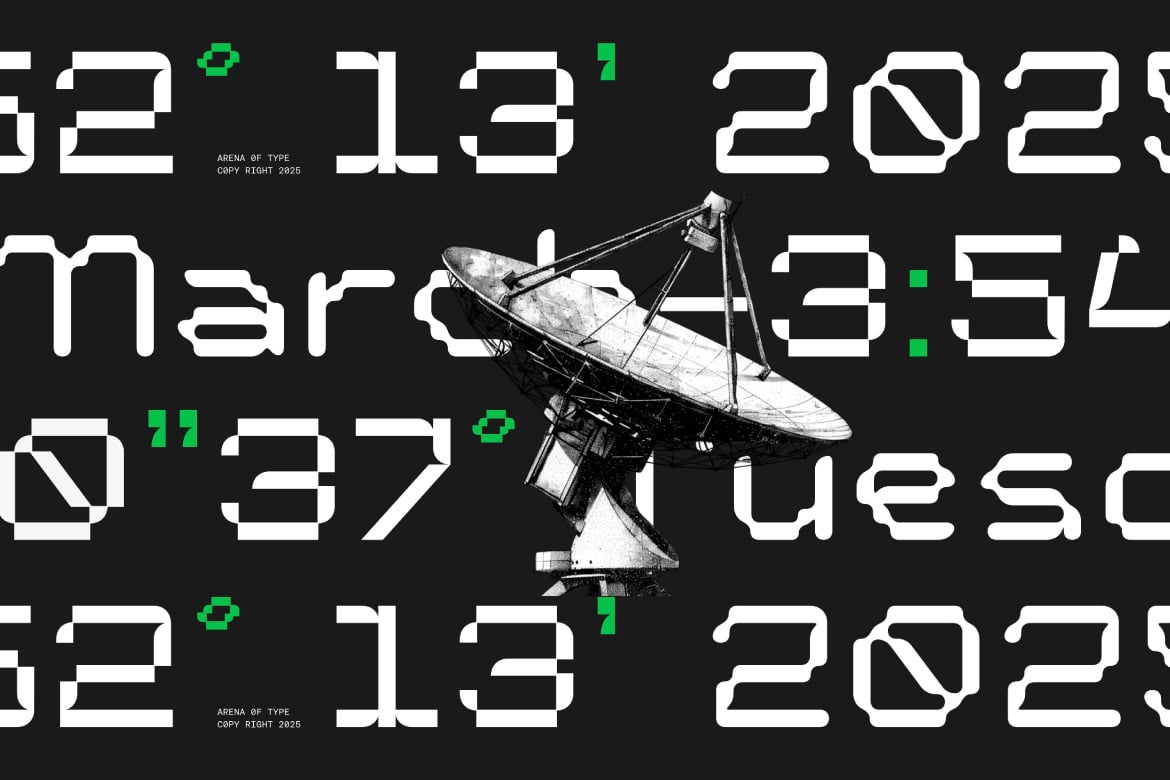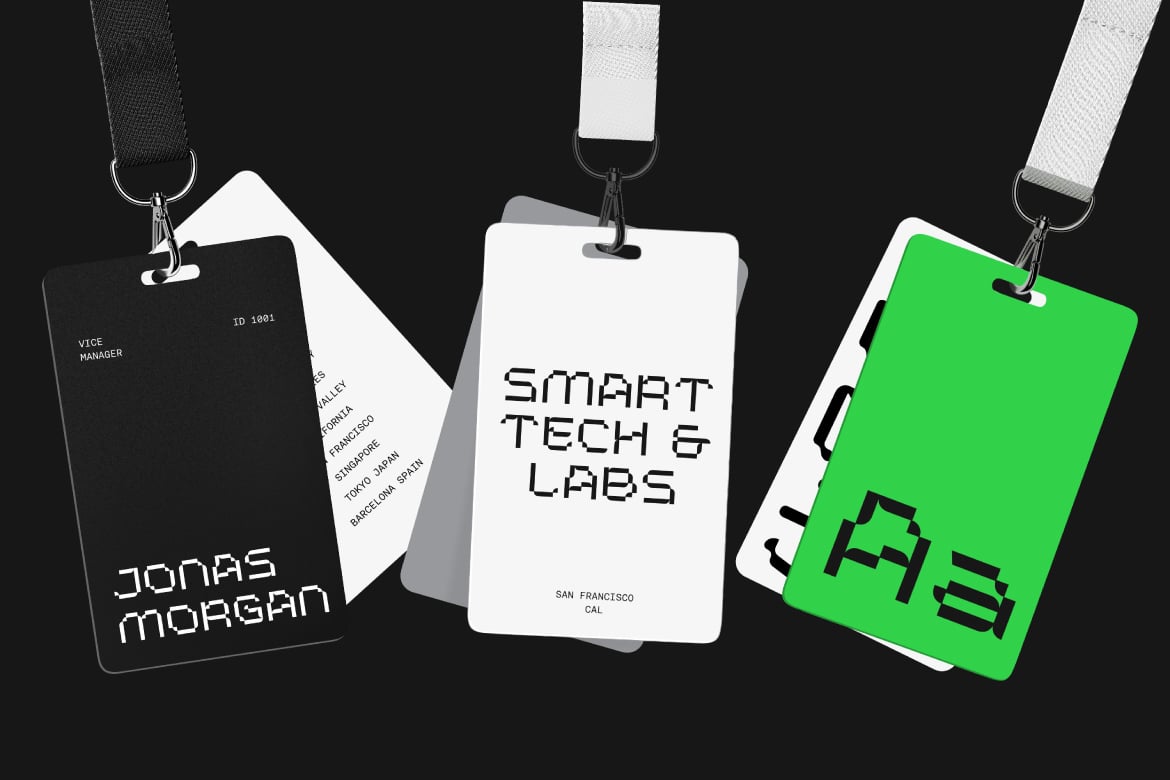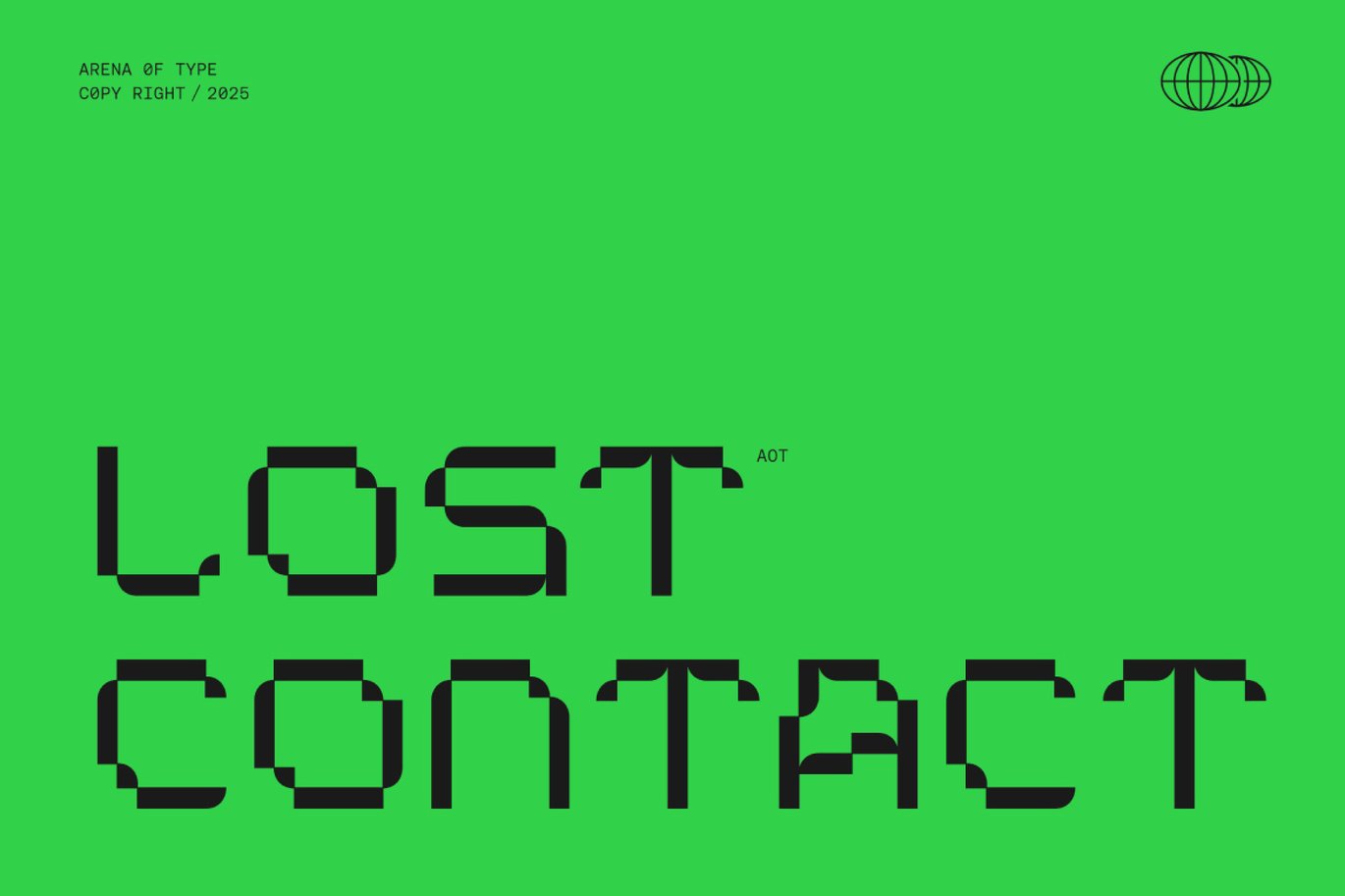
AOT Lost Contact – Contemporary Pixel Font
AOT Lost Contact – Contemporary Pixel Font is a versatile typeface ideal for various projects, including logos, branding, posters, blog headers, advertisements. The free version includes a full set of uppercase and lowercase letters, available in OTF format.